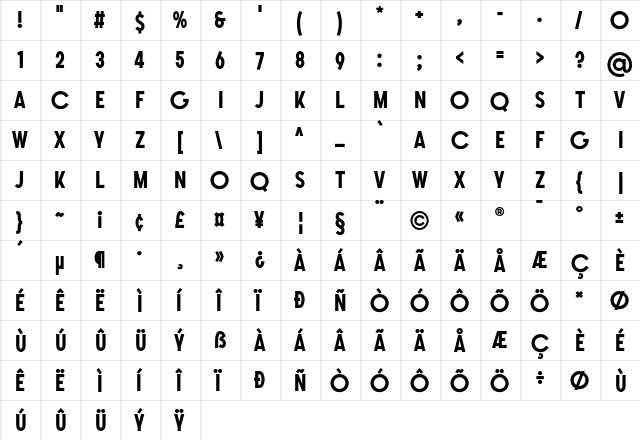
SONGER Grotesque Bold
| Foundry | Alexander Pravdin |
| Designer | Alexander Pravdin |
Design Context for SONGER Grotesque Typeface
SONGER Grotesque takes a measured approach to typography — its balanced proportions and neutral character make it a reliable workhorse for both digital and print work. Its bold stroke weight gives it real presence on the page.
Pro Tip: Use SONGER Grotesque in both headline and body roles to test its range before committing to a single application.